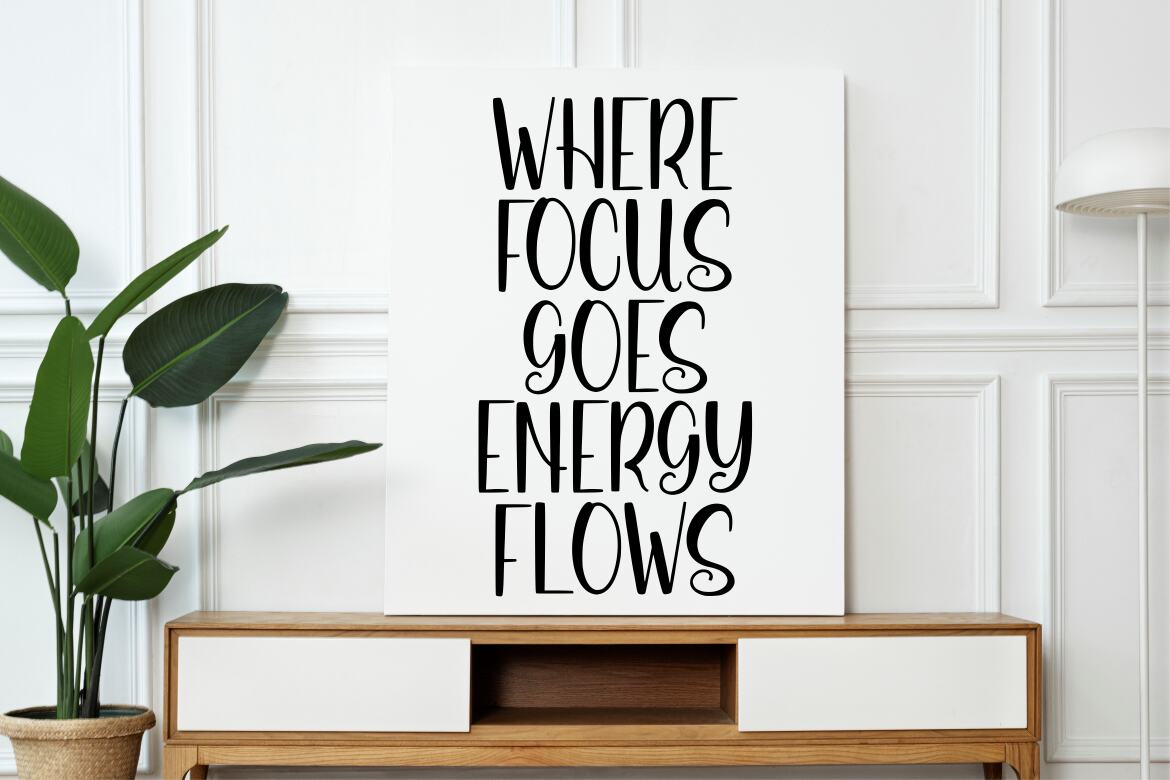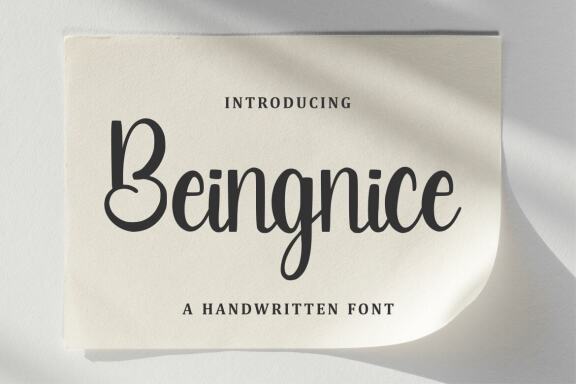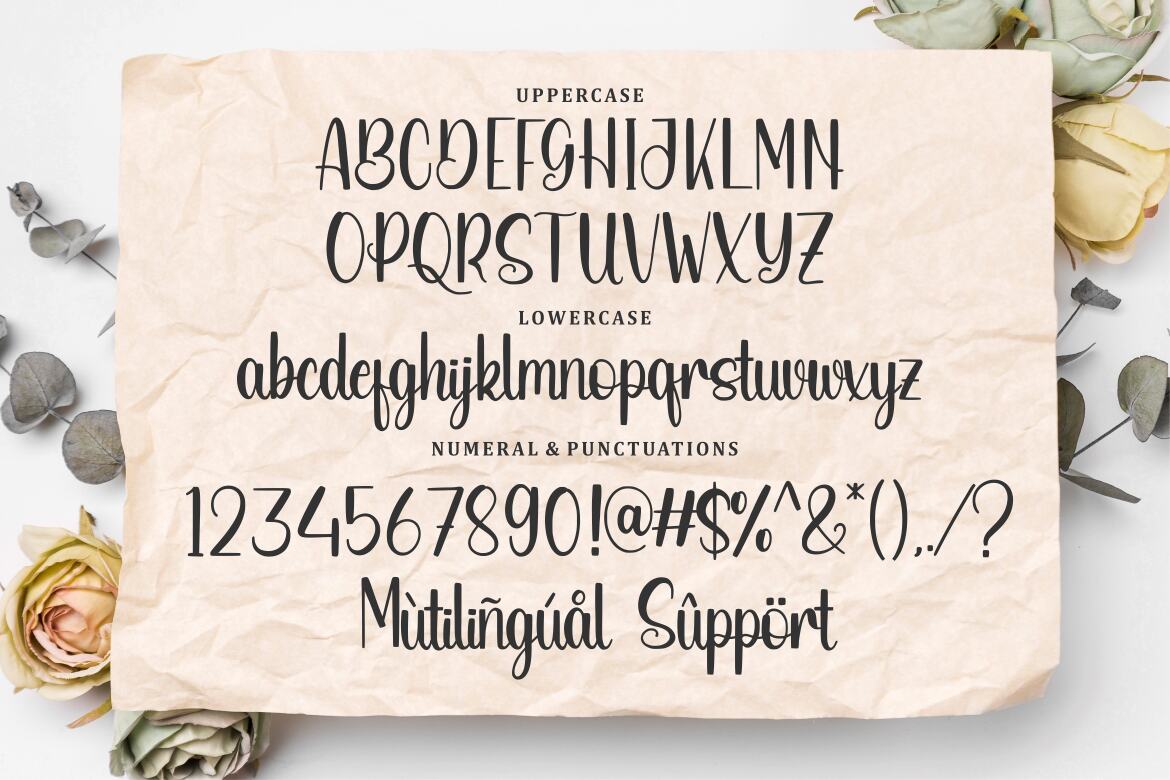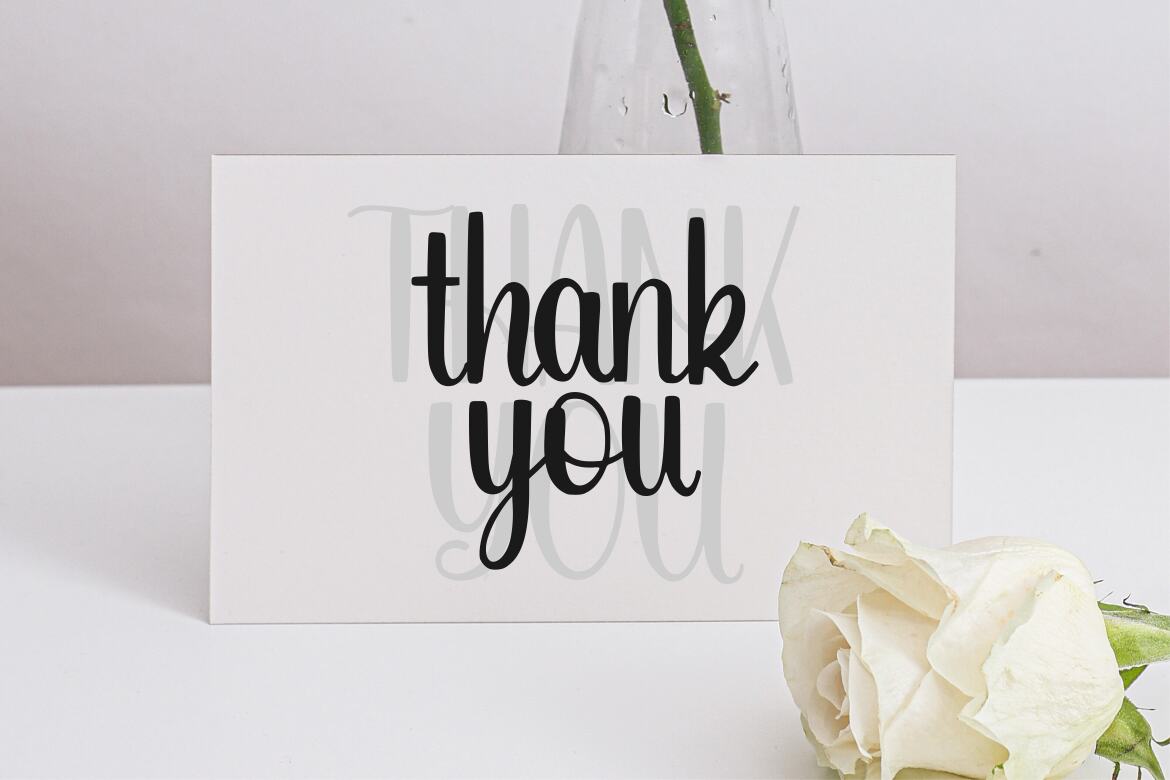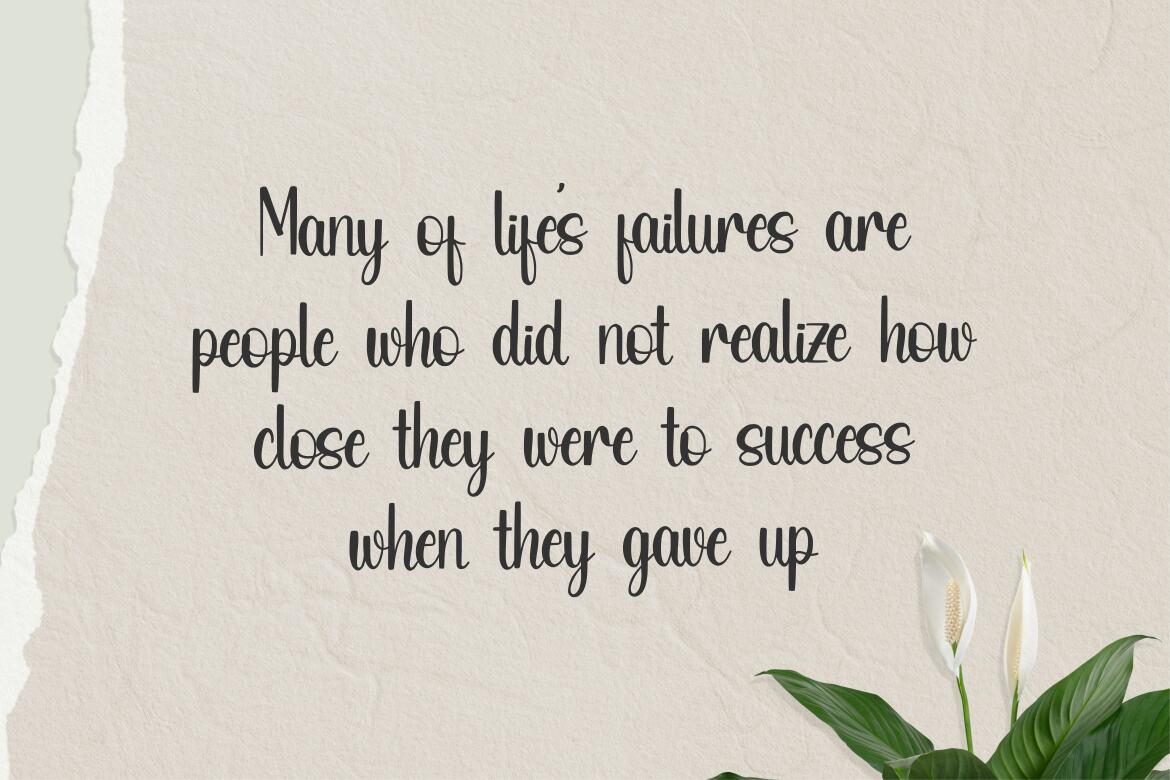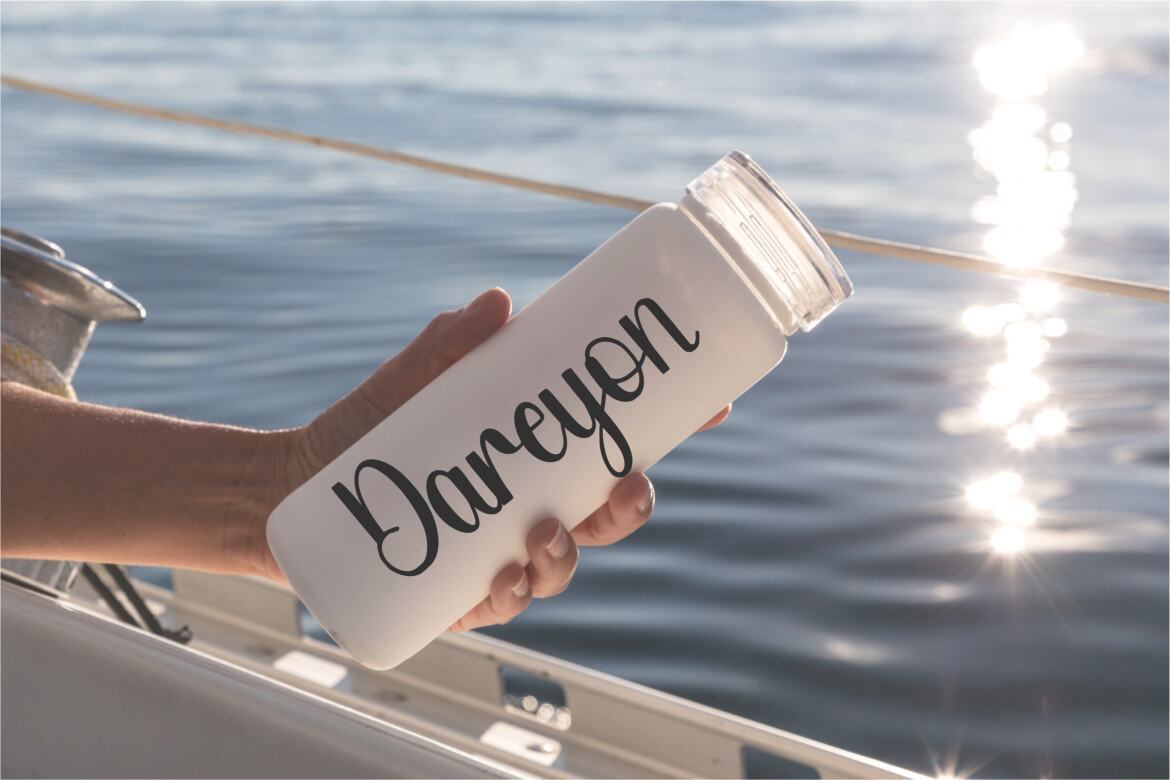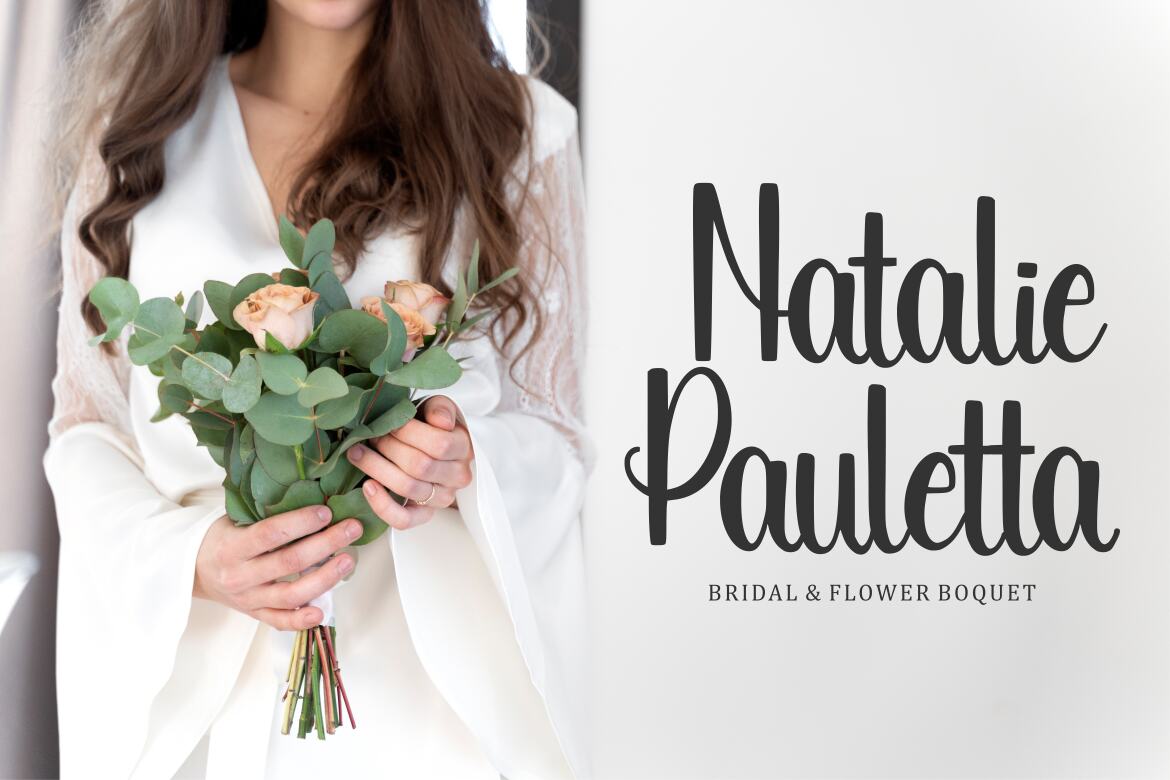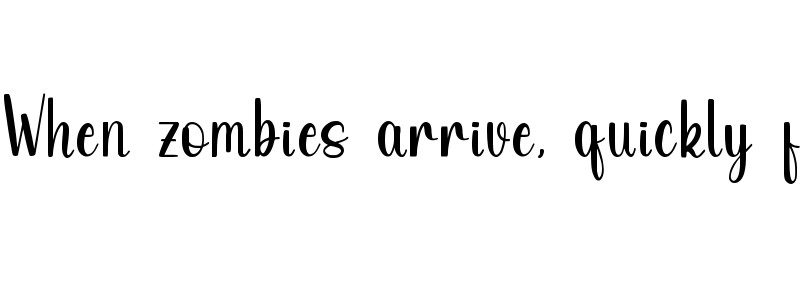
Beingnice FREE Font
Proudly Present, Beingnice
Beingnice is a Handwritten Font
Beingnice is perfect for product packaging, branding project, megazine, social media, wedding, or just used to express words above the background.